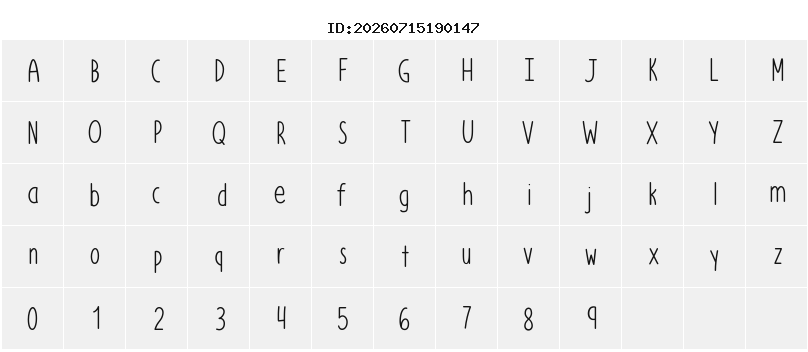
About Azurite.ttf
Azurite.ttf is a modern, elegant sans-serif font designed for ultimate readability and visual harmony. Perfect for branding, headlines, web design, and print materials.